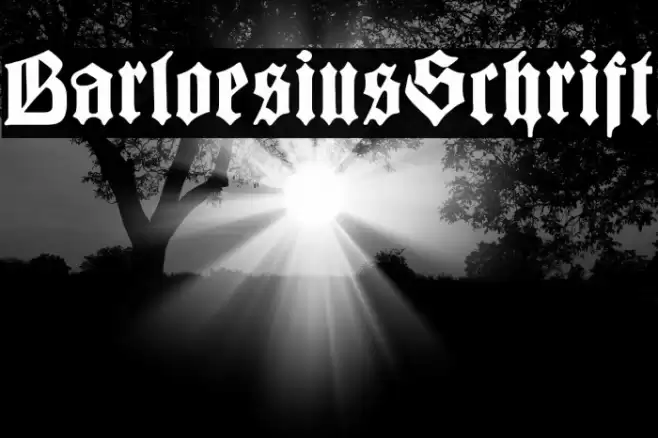
BarloesiusSchrift Font
BarloesiusSchrift Description
This font features a traditional blackletter style, characterized by its ornate and intricate letterforms. The uppercase letters are bold and dramatic, with sharp angles and decorative flourishes that evoke a sense of historical elegance. The lowercase letters maintain the same intricate detailing, providing a cohesive and visually striking appearance. The numerals are equally elaborate, with unique curves and embellishments that enhance the overall aesthetic. Special characters are designed to match the elaborate style, making this font suitable for projects that require a touch of classic sophistication.
A bold and ornate blackletter font with intricate detailing from Uncategorized fonts.
- Proposed Projects: Ideal for historical documents, certificates, wedding invitations, and branding that requires a classic and sophisticated touch.
- Overall Style: Vintage
- Use Case: Logos, Headlines, Decorative text